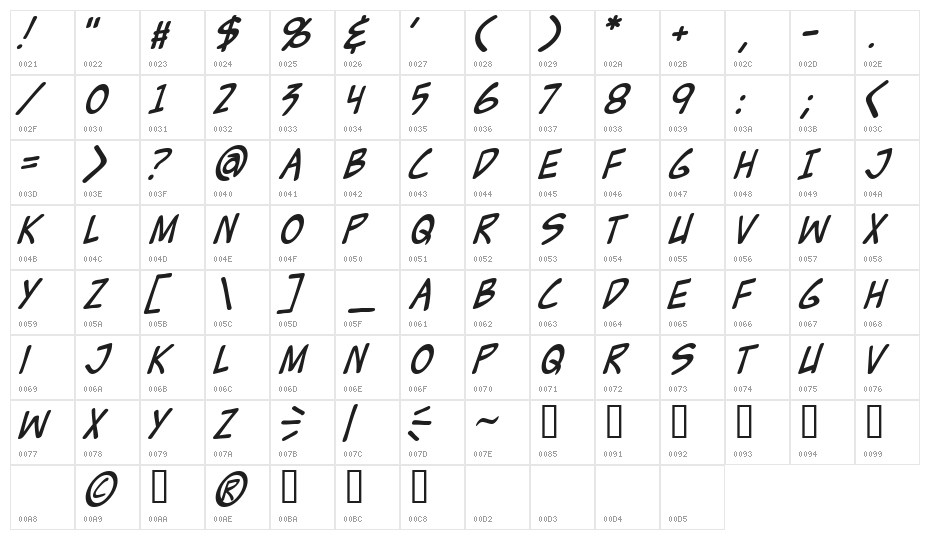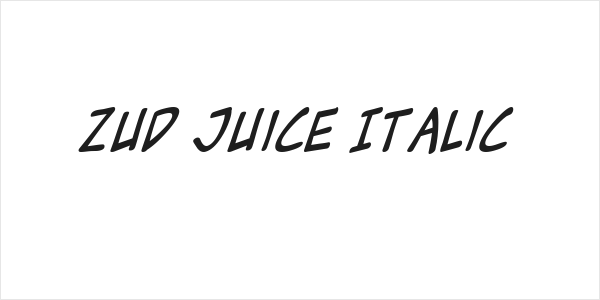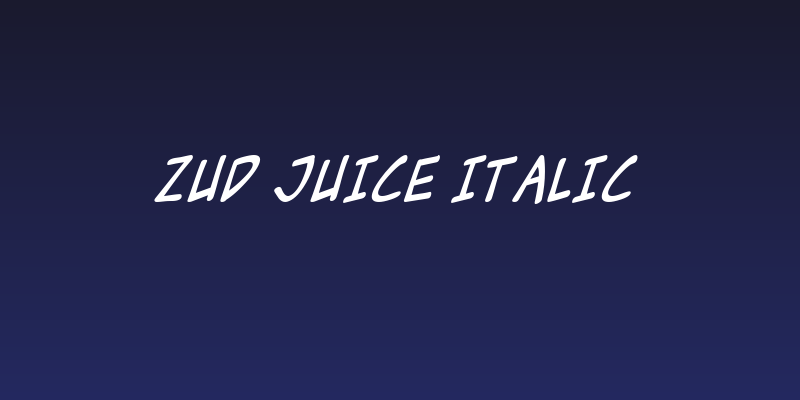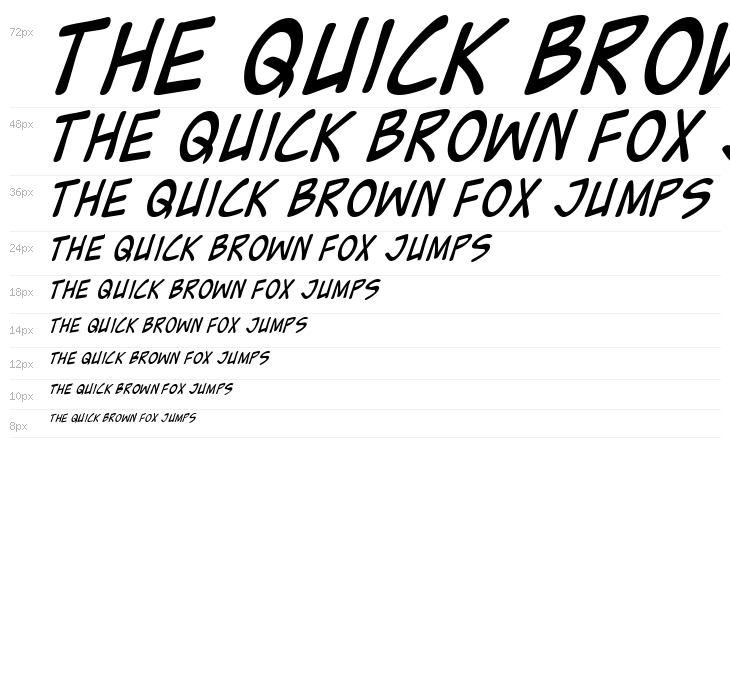
Zud Juice Italic Font
Zud Juice Italic Description
This font features a dynamic and energetic style, characterized by its slanted, italicized form that gives a sense of motion and fluidity. The strokes are smooth and slightly rounded, contributing to a casual and approachable appearance. The uppercase and lowercase letters maintain a consistent slant, enhancing the cohesive look of the text. The numbers and special characters follow the same stylistic cues, ensuring uniformity across all glyphs. The font's design is both playful and modern, making it suitable for a variety of creative applications.